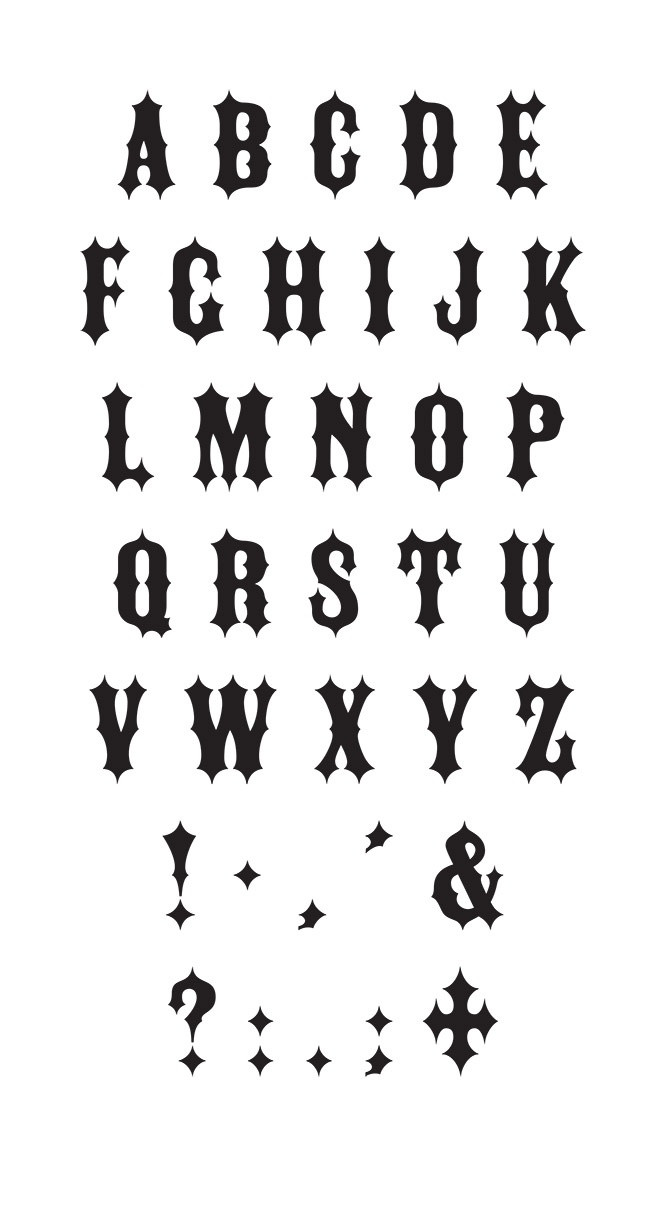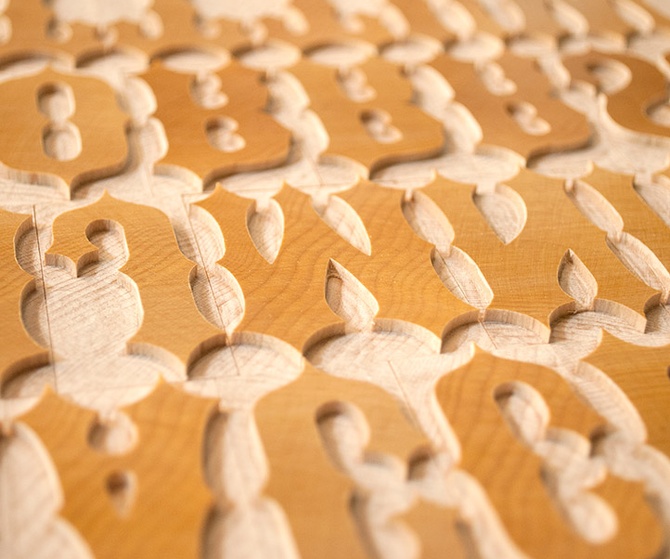
Gothic Tuscan No. 2
The ultimate Victorian, Gothic Tuscan No. 2 catches the eye with its severe points at top and bottom in addition to the medial spurs. It's the lesser known cousin of Gothic Tuscan Pointed (think "Ironwood"), yet this lack of popularity only increases its subtle appeal.
Several manufacturers made a version of it, and VWT's is a studied amalgmation of them. This incarnation most resembles the Wm. H. Page version found in its 1888 specimen. The patterns were drawn by James Grieshaber.